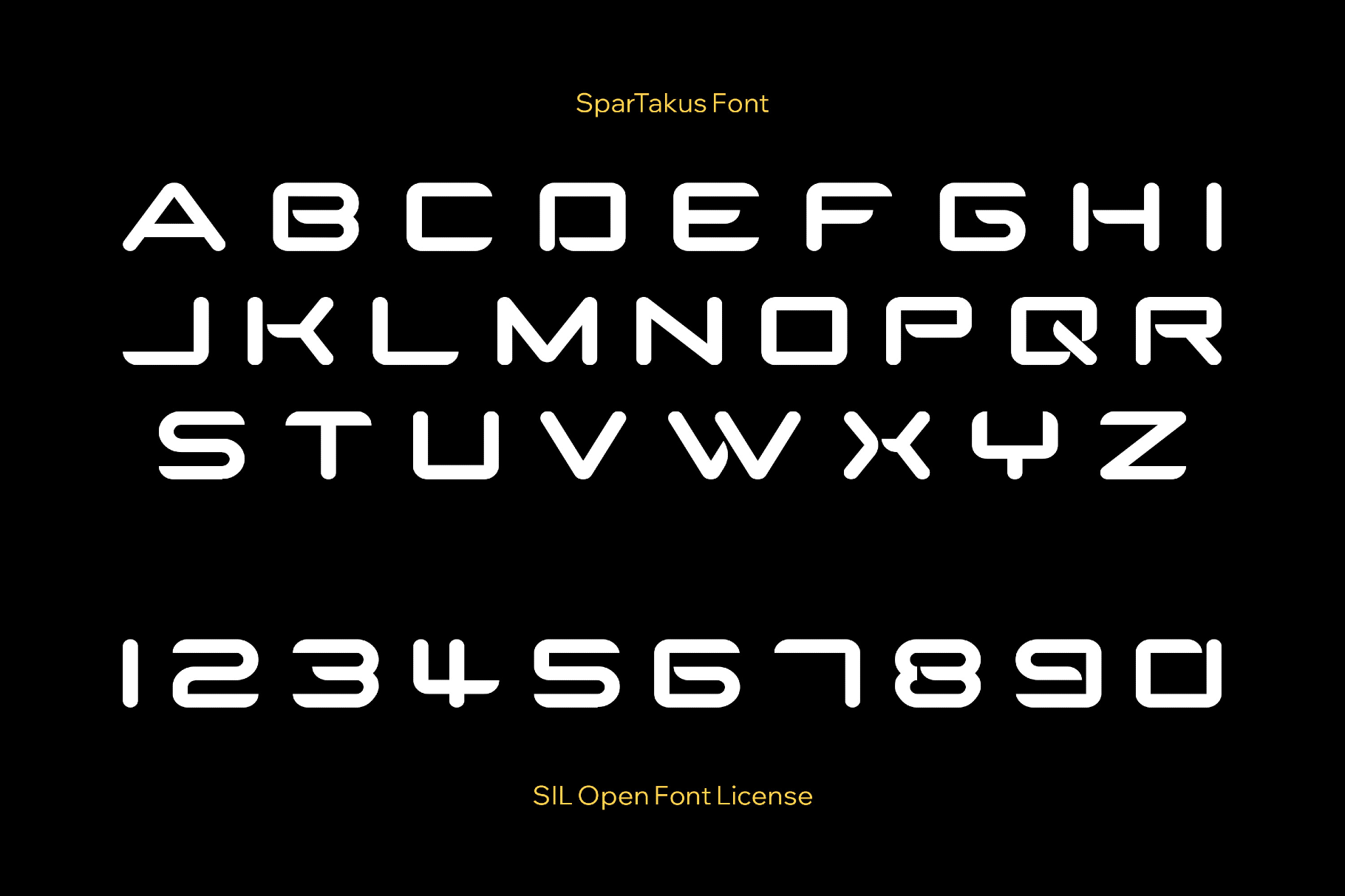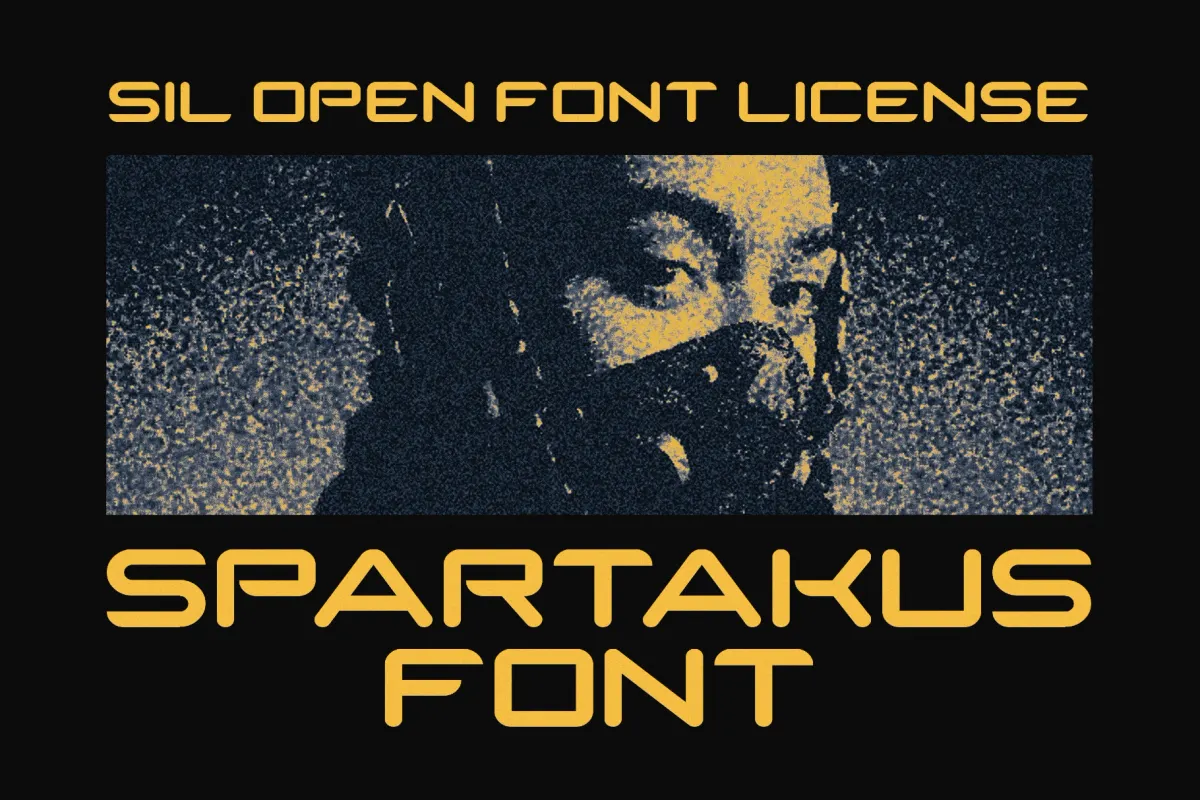
SparTakus Font
SparTakus
SparTakus is an aggressive, square techno font with fractured angles and militant weight that evokes ancient Spartan symbolism filtered through heavy-metal logos and fight-poster graphics. The straight, engineered letters are best used for band branding, album covers, combat-sport promotions, game titles, tech or cyberpunk poster headlines, apparel graphics, UI and HUD labels, streaming overlays, experimental landing pages, and hard-edged merchandise visuals.
- Uppercase letters only.
- International characters with multilingual support across extended Latin scripts.
- Mathematical symbols and fundamental metrics.